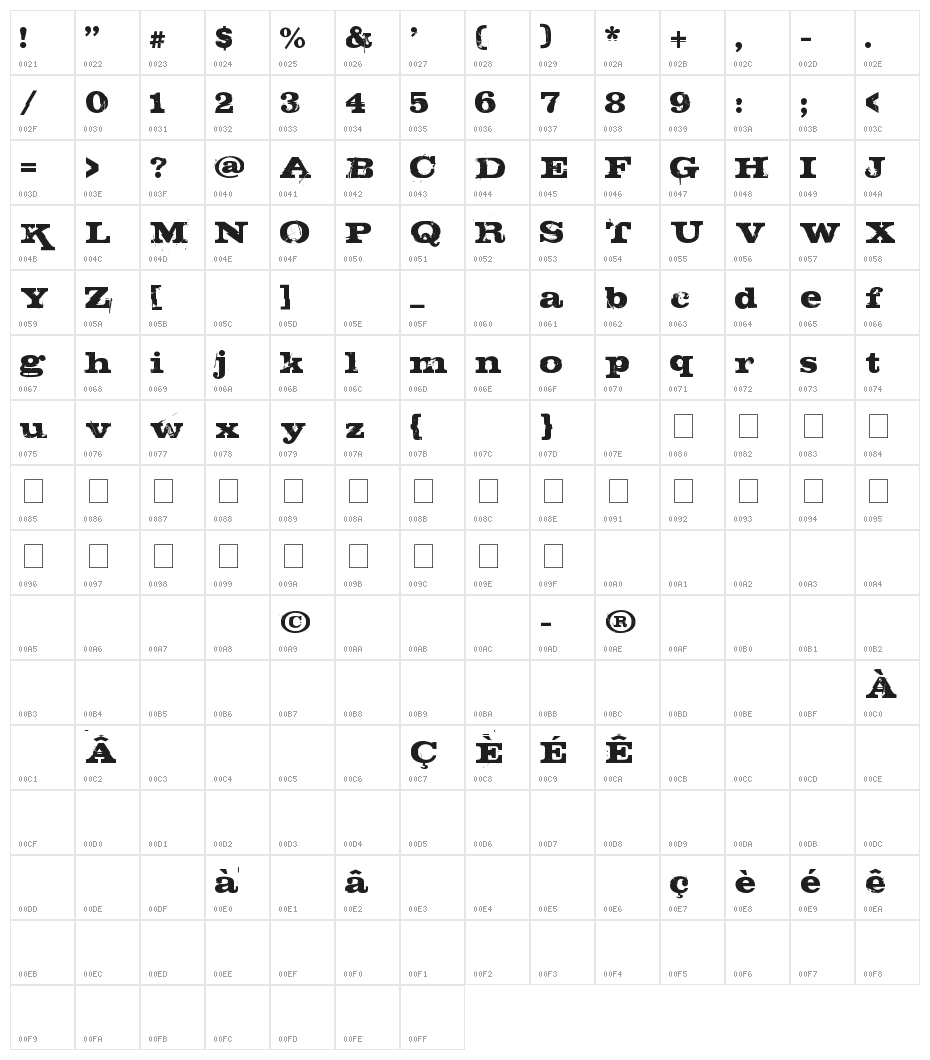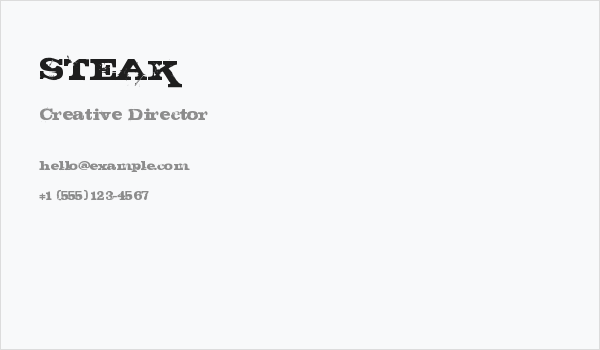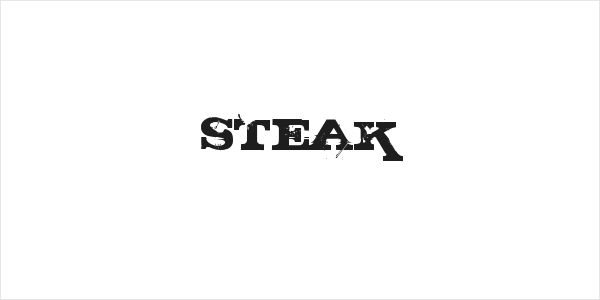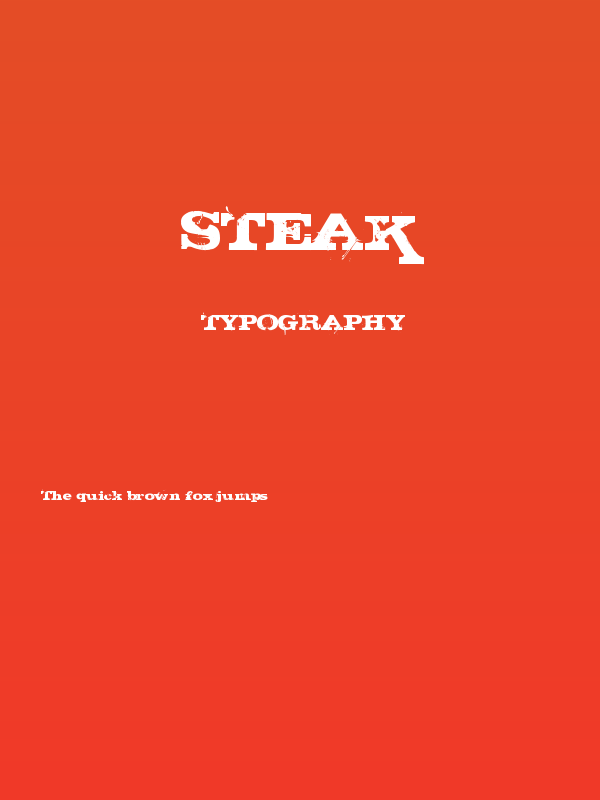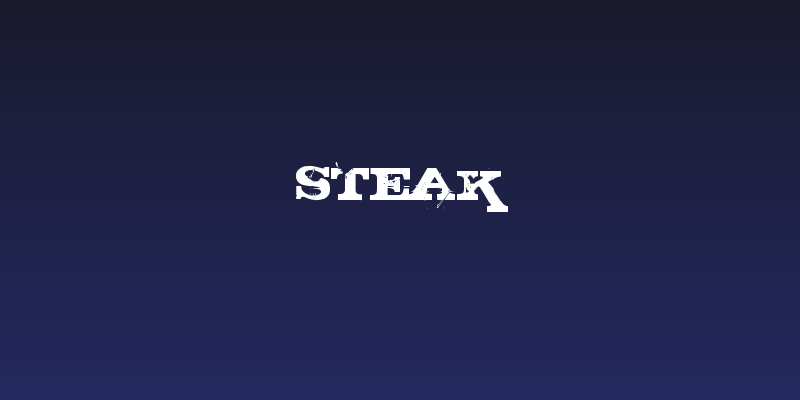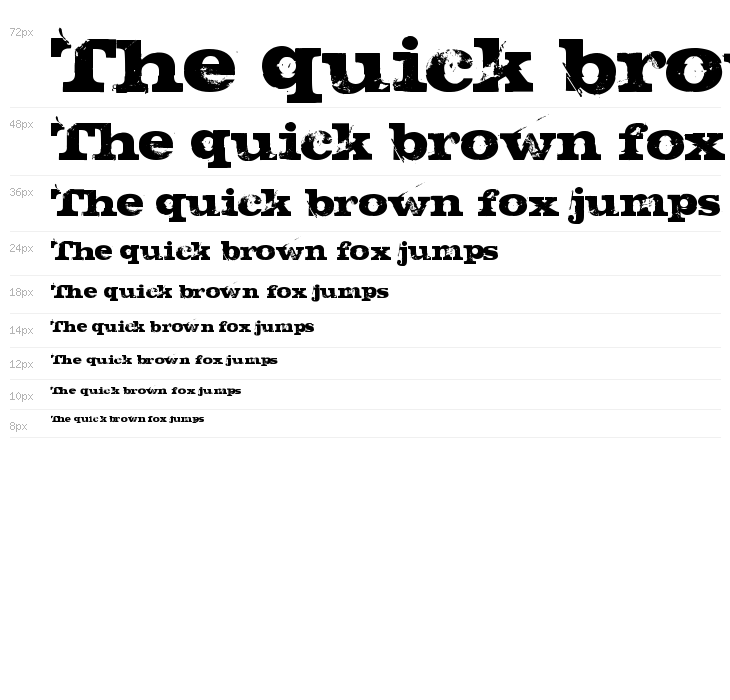
STEAK Font
STEAK Description
This font features a bold, distressed style with a strong, impactful presence. The uppercase and lowercase letters are robust and heavily weighted, with a unique grunge texture that gives it a worn, vintage appearance. The numbers and special characters follow the same aesthetic, maintaining consistency across the set. The font's design is reminiscent of old, weathered typefaces often seen in vintage posters or industrial settings, making it ideal for projects that require a rugged, authentic look.
| Proposed Projects | Perfect for vintage posters, album covers, branding for rugged products, or any design needing a bold, distressed look. |